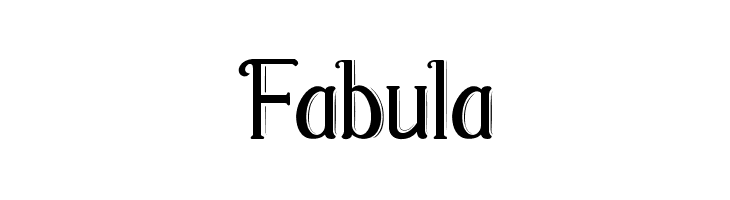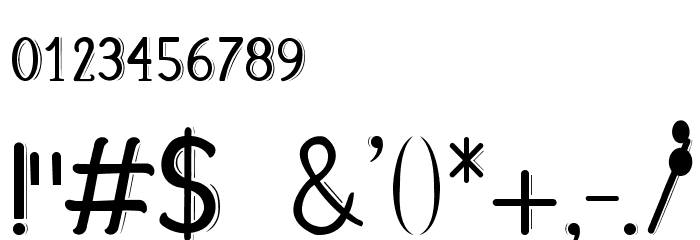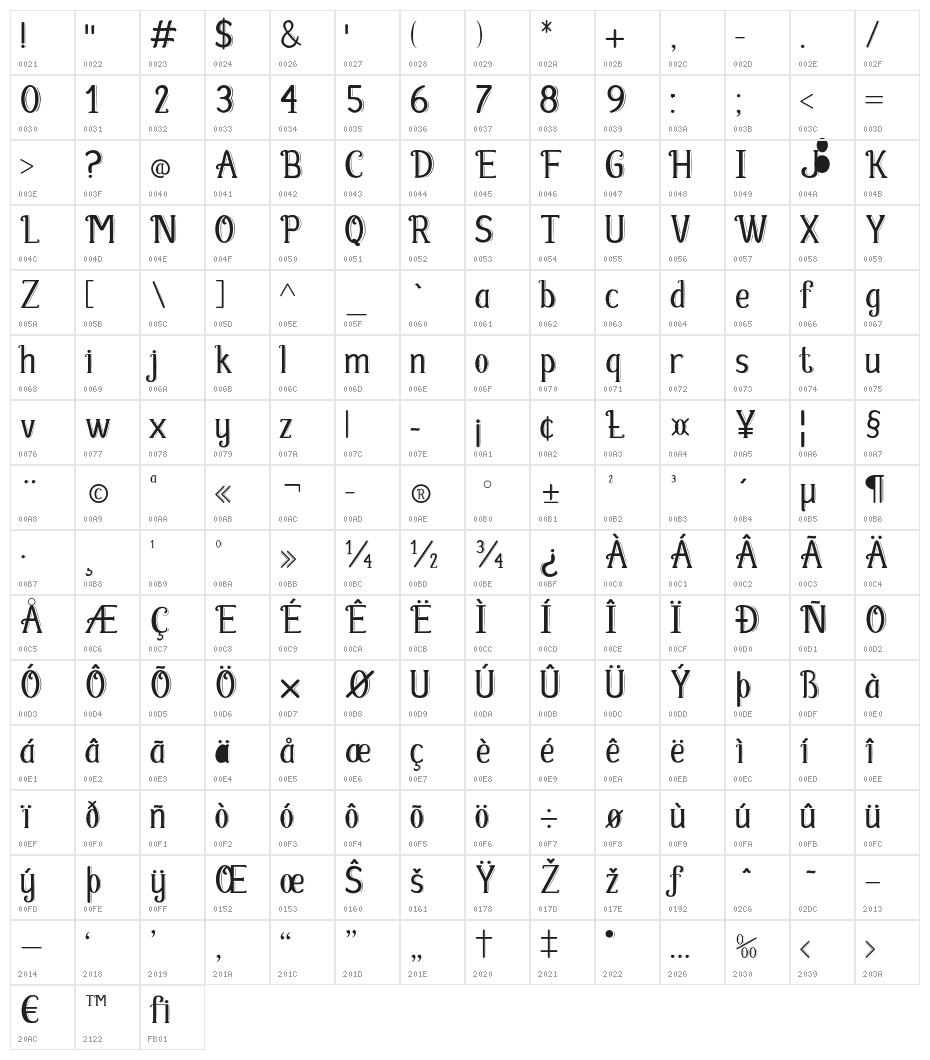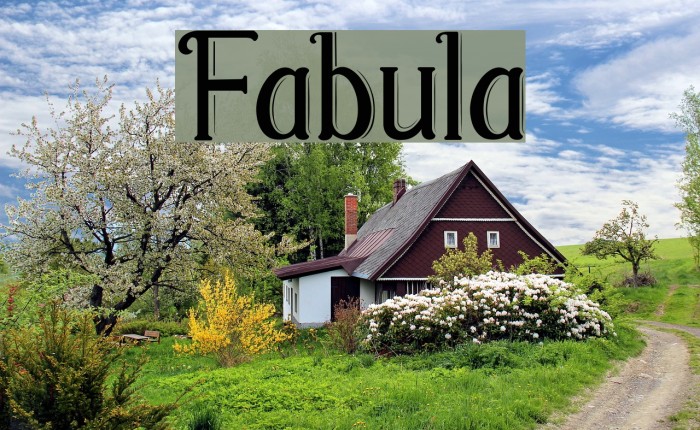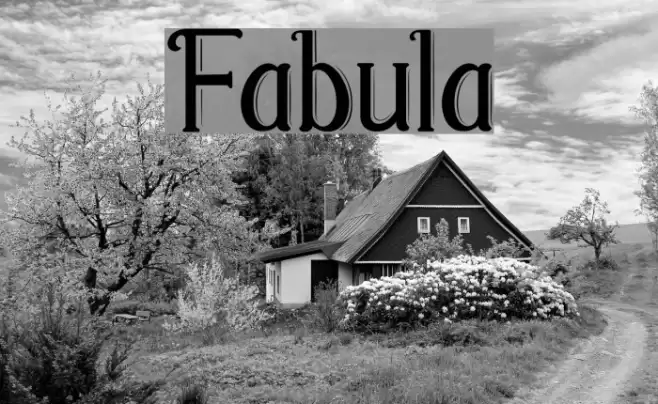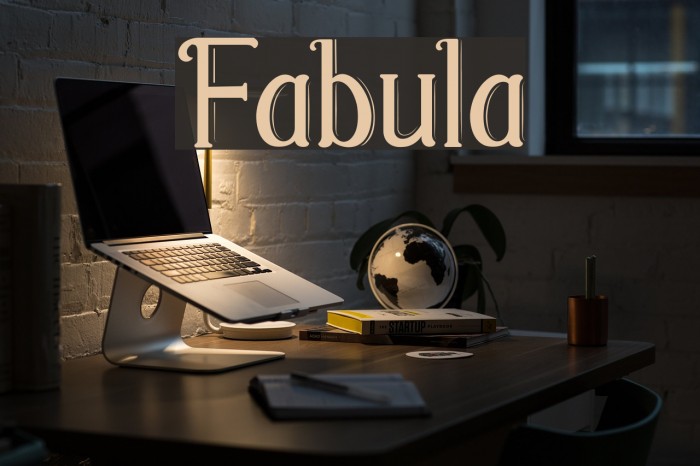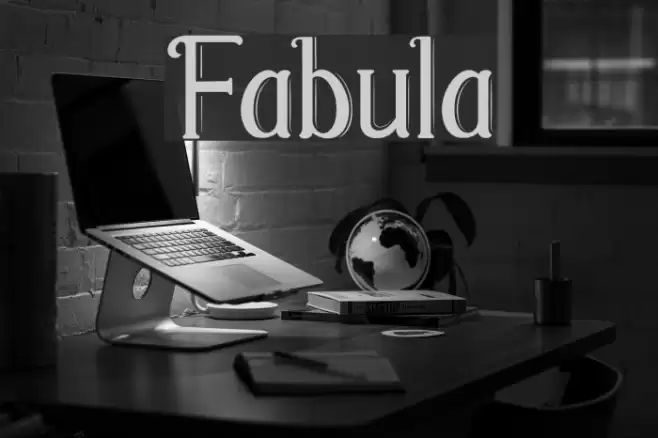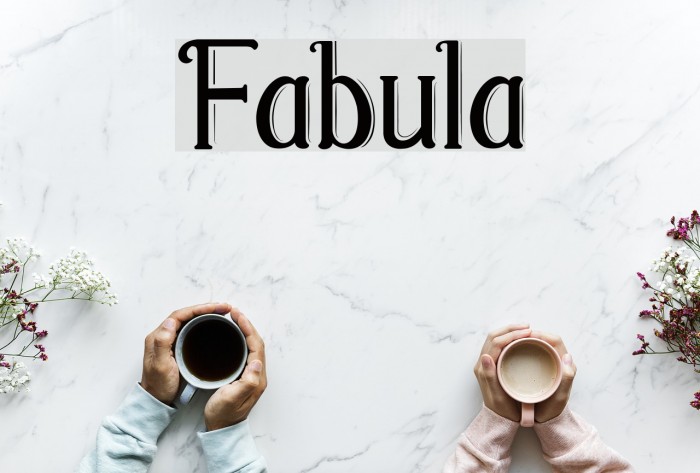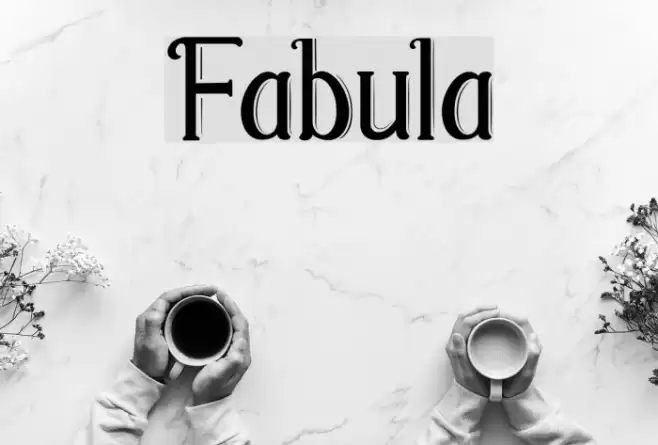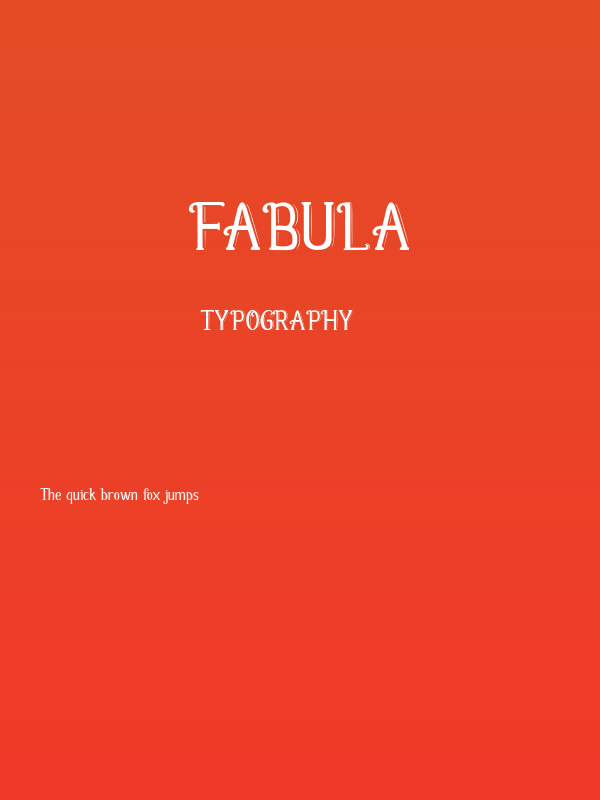
Fabula Font
Fabula Description
This font features a unique blend of classic and modern elements, characterized by its bold and decorative style. The uppercase letters exhibit a strong presence with their thick strokes and subtle serifs, while the lowercase letters maintain a consistent flow with rounded edges and slight flourishes. The numerals are bold and easily legible, complementing the overall aesthetic. Special characters are designed with a playful touch, adding to the font's versatility. The font's high contrast between thick and thin strokes enhances its readability and visual appeal, making it suitable for various design projects.
| Proposed Projects | Ideal for branding, poster design, headlines, and creative projects that require a strong visual impact. |